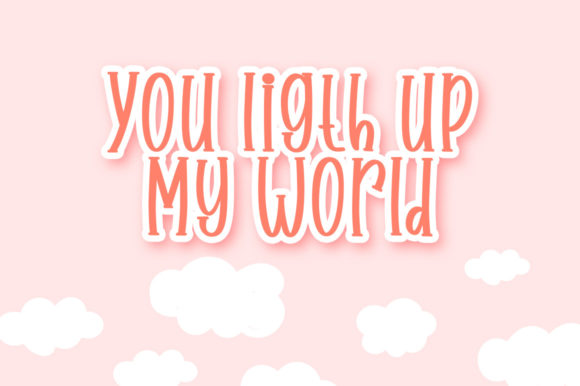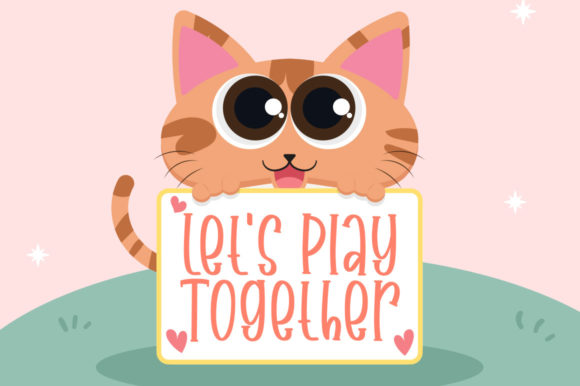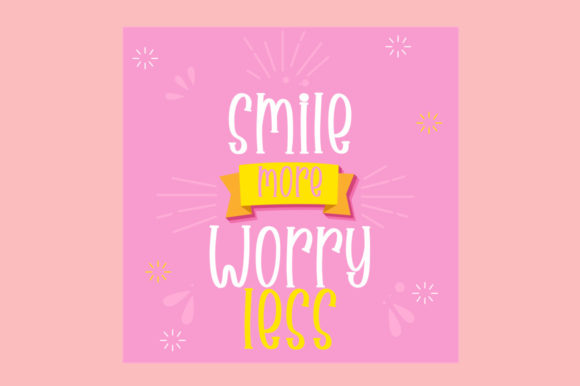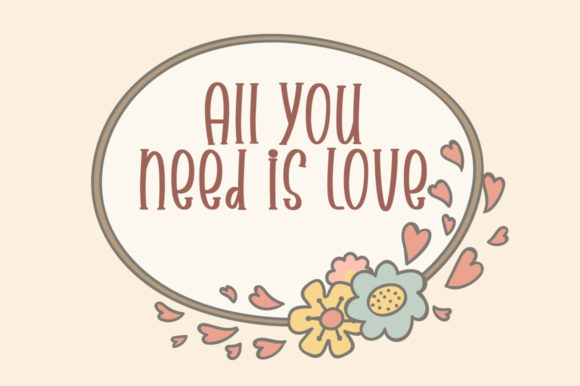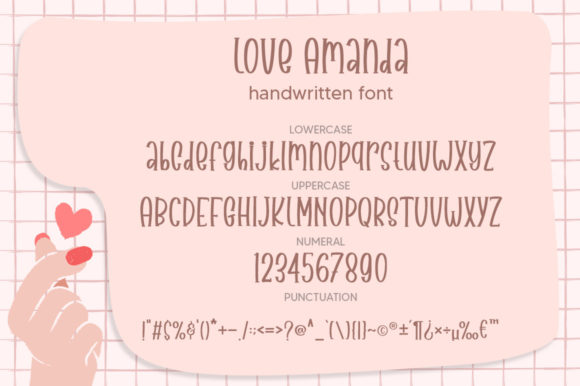
Introduction to Love Amanda Font
Do you remember that moment when you stumbled upon the perfect font for your creative project? For many designers, it’s a moment of pure joy and excitement. It’s like finding the missing piece to a puzzle, or the perfect color to match your mood. For us, that moment came when we discovered the quirky and playful Love Amanda Font.
Love Amanda Font is a beautiful design resource that’s perfect for a wide range of applications, from logos and headings to t-shirts, letterheads, and even signage. With its transparent background and high-quality design, it’s a valuable addition to any designer’s toolkit. And the best part? It’s available for free download, making it an accessible and affordable resource for creative projects of all sizes.
Whether you’re working on a personal project or a professional design, Love Amanda Font is a great choice for anyone looking to add a touch of whimsy and personality to their work.
Key Features of Love Amanda Font
- High-quality font with a transparent background, ideal for designing with a clean and minimalist aesthetic.
- Includes a range of characters and glyphs, making it suitable for a variety of creative applications, from logos to body text.
- Love Amanda Font is available in 5 different styles, each with its unique characteristics and flair, allowing designers to add a touch of personality to their projects.
- Perfect for designers looking for a high-quality, free font to elevate their creative project, without compromising on style or functionality.
Honest Review: Love Amanda Font
I recently stumbled upon the Love Amanda Font while searching for the perfect design resource for my creative project. I was immediately drawn to its unique and playful style, making it a great fit for a variety of high-quality designs.
One thing that works well with the Love Amanda Font is its versatility. It can be used for both digital and print projects, and its transparent background makes it easy to work with. The font also comes in a variety of weights and styles, allowing designers to create a range of creative and visually appealing designs.
- ✨ Unique and playful style
- ✨ Versatile and suitable for both digital and print projects
However, one limitation of the Love Amanda Font is that it may not be suitable for formal or professional projects, as its playful style may not be taken seriously. Additionally, the font may not be as polished as some other high-quality fonts on the market.